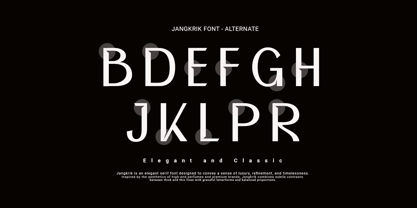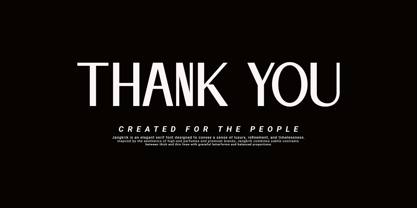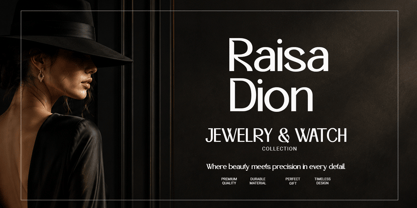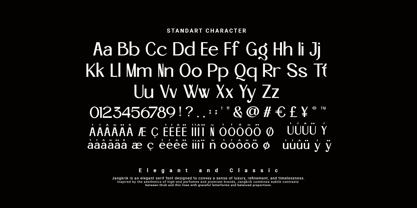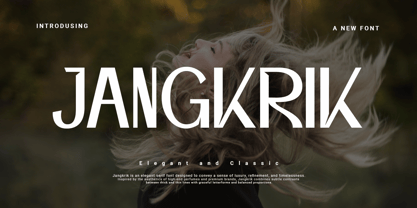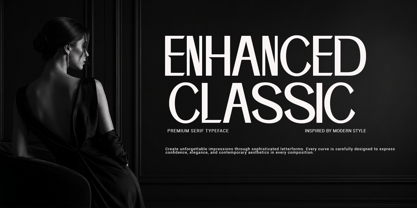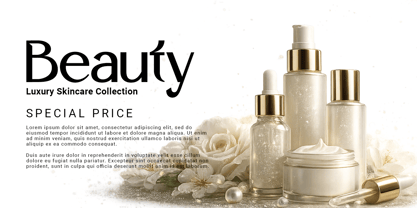
Jangkrik
by Agung Sudirman
The Jangkrik Font Family was designed by Agung Sudirman and published by Agung Sudirman. Jangkrik contains 2 styles and family package options. More about this family
Jangkrik is a clean and modern sans serif font, designed with simplicity and elegance in mind. Perfect for branding, UI/UX design, editorial projects, and creative work, Jangkrik offers a professional and fresh look that makes your designs stand out.
With balanced proportions and crisp lines, Jangkrik ensures excellent readability and a contemporary aesthetic. This versatile typeface is perfect for logos, headlines, posters, digital and print designs.